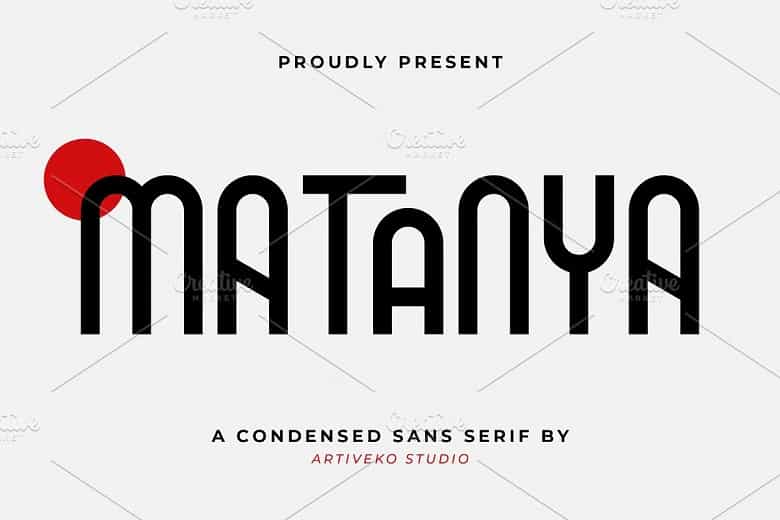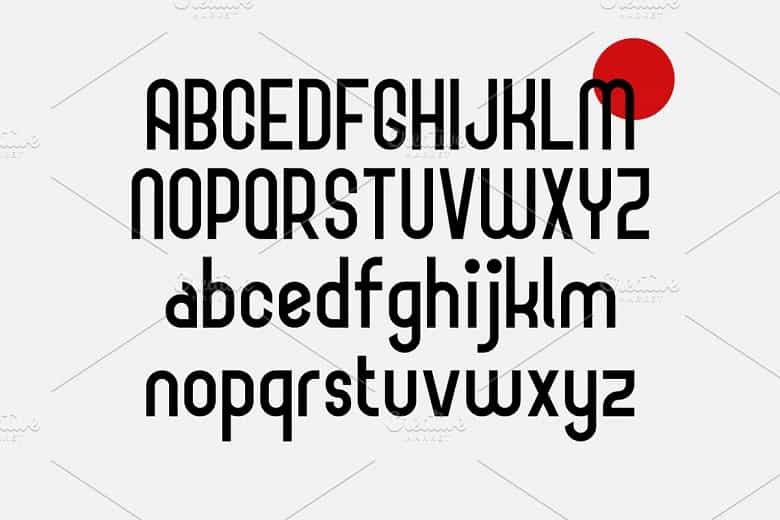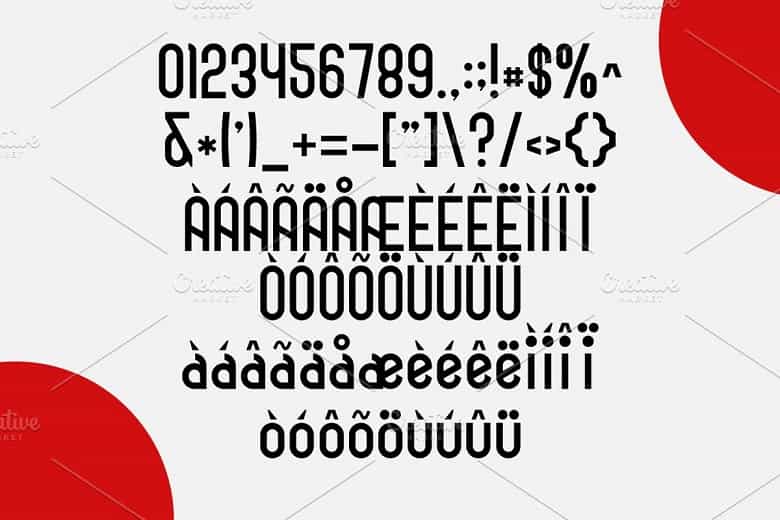
Matanya is a unique condensed sans serif logo font developed by Iwan Alwan. It has different shapes with both capital and small case letters, giving it a stylish and contemporary look. This font has multilingual capabilities and comes with additional features such as ligatures and alternates, which makes it ideal for branding and designing.